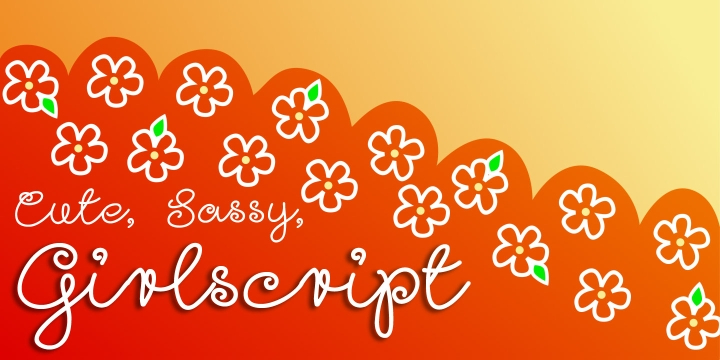
GirlScript is a hand drawn, script and kids font family. This typeface has two styles and was published by Scholtz Fonts.
Based on the popular Girltalk font, cute, cheeky Girlscript, was specially designed for the young-teen market.
I felt that it was time for Girltalk to have a “big sister” script font to complete the group.
Pretty & feminine, with a large dose of cheek, Girlscript is great for:
—“girl style” stationery
—diary covers
—clothing hang-tags
—party invitations
—greeting cards
—book covers
—movie posters
—CD covers
—game advertising media
Girlscript is perfect for hen parties, baby showers, pamper parties and other occasions that bring out the “girl in” women.
Think sugar ‘n spice, think cute ‘n cheeky, add a dash of Girlscript and you’re on a winning streak!
Girlscript is fully professional, carefully letterspaced and kerned. All upper and lower case characters, punctuation, numerals and accented characters are present.